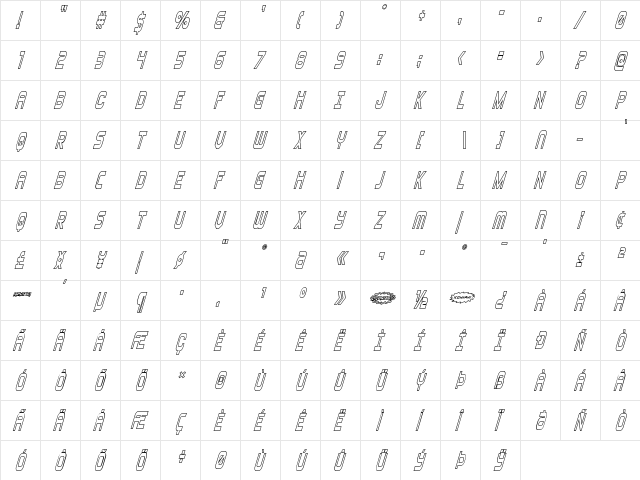
Blizzard Shaft Outline Italic Regular
Design Context for Blizzard Shaft Outline Italic Typeface
Blizzard Shaft Outline Italic brings ornamental detail and strong personality to headlines and identities, where visual impact matters more than quiet functionality. The dynamic lean of this cut emphasises speed and emphasis in any layout.
Font Pairing: Pair with a clean neutral sans-serif for body copy to let Blizzard Shaft Outline Italic's character lead without overwhelming the composition.
Pro Tip: Treat Blizzard Shaft Outline Italic as the centrepiece of your typographic hierarchy. One strong heading set in a decorative face can carry an entire layout.